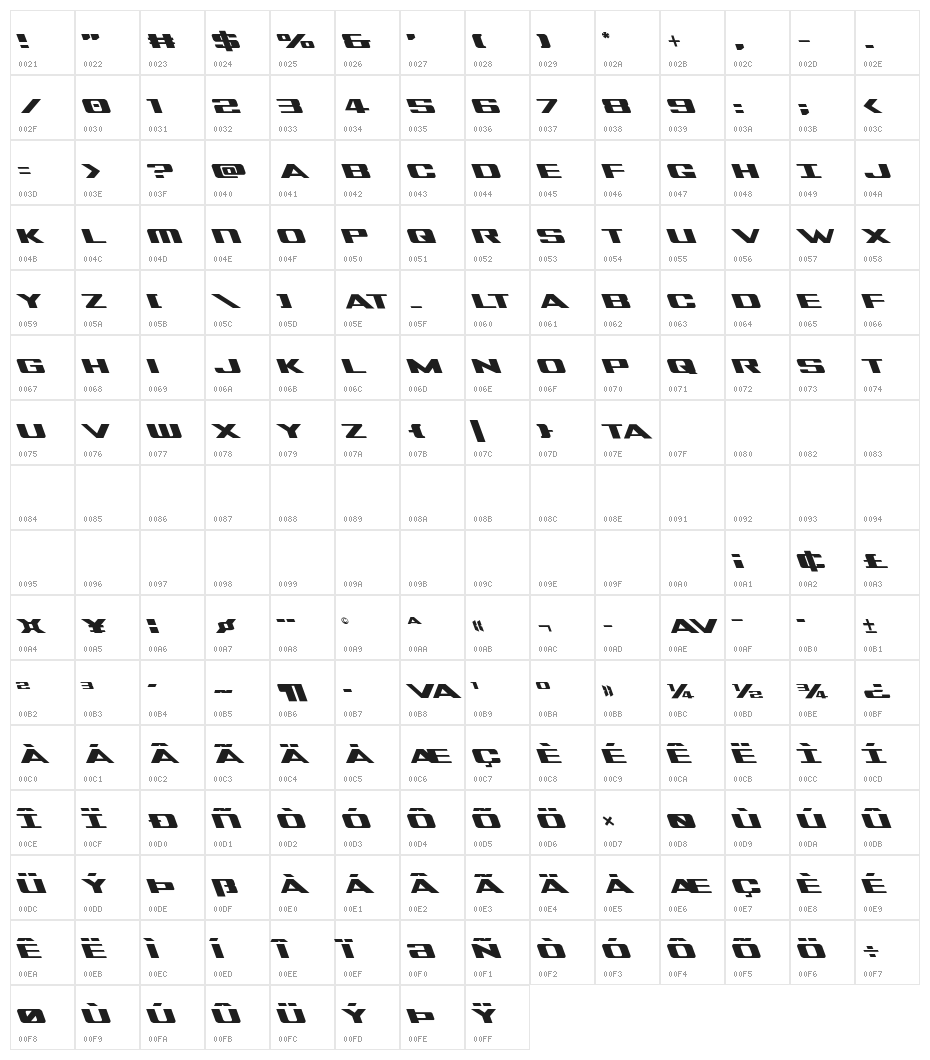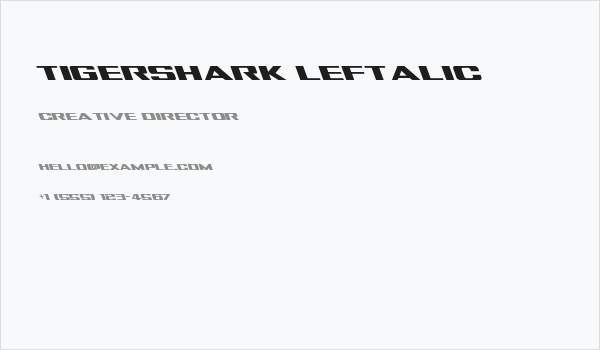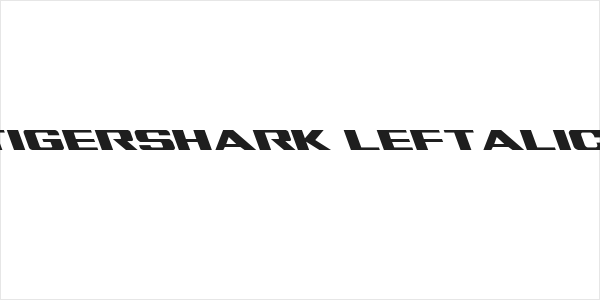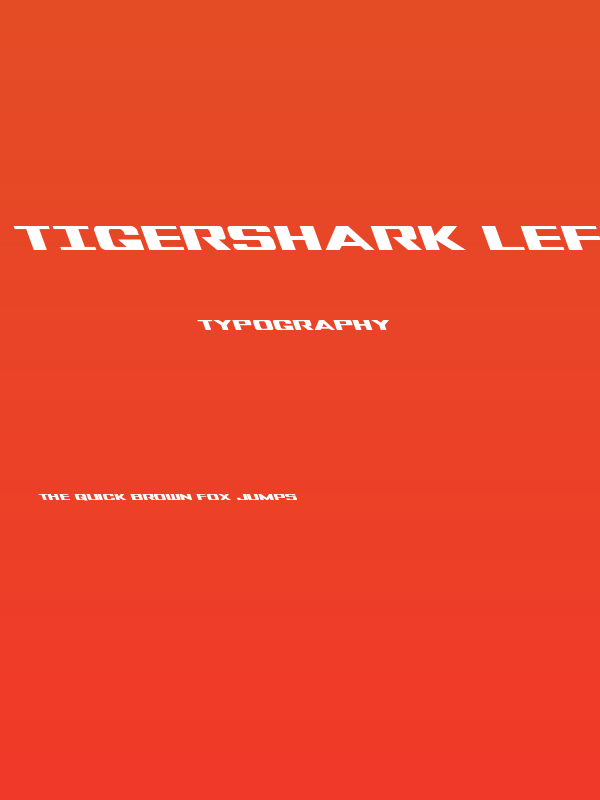
Tigershark Leftalic Font
Tigershark Leftalic Description
This font exhibits a bold and dynamic style with a distinct slant to the left, giving it a sense of motion and energy. The characters are wide and robust, with sharp angles and a futuristic appearance. The uppercase letters are consistent in height, while the lowercase letters maintain a similar width, creating a cohesive look. The numerals are equally bold, matching the style of the alphabet. Special characters are integrated seamlessly, maintaining the overall aesthetic. This font is ideal for projects that require a strong, impactful presence.
Proposed ProjectsIdeal for sports branding, action movie posters, video game titles, and dynamic advertising campaigns.